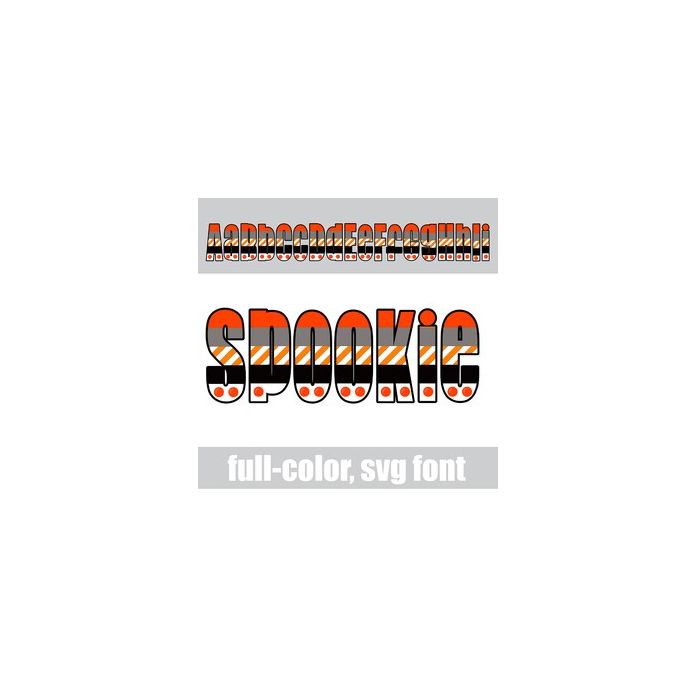
This full-color font features simple patterns in a Halloween color palette. This font works best for titles, displays, posters and more. Please note color fonts will show as black in non compatible programs. This font type is compatible with Silhouette Studio.